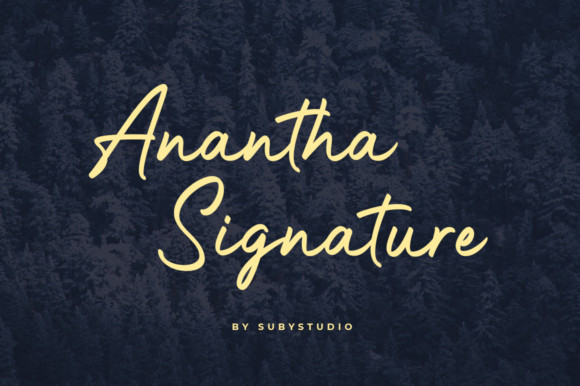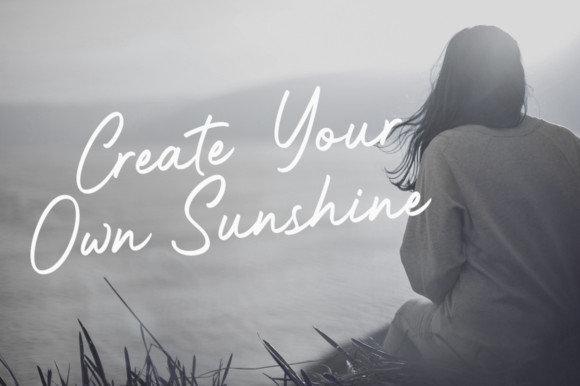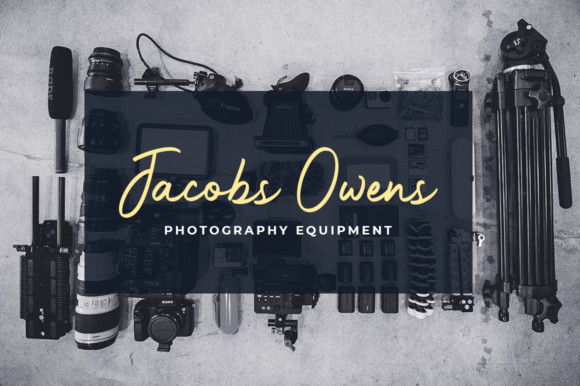
Anantha Font
Anantha Signature is a modern and stylish font, carefully handcrafted to become a true favorite. Its casual charm makes it appear wonderfully down-to-earth, readable and, ultimately, incredibly versatile. This handwritten font is the perfect fit for all of your logos, branding, social media, and crafty DIY projects.